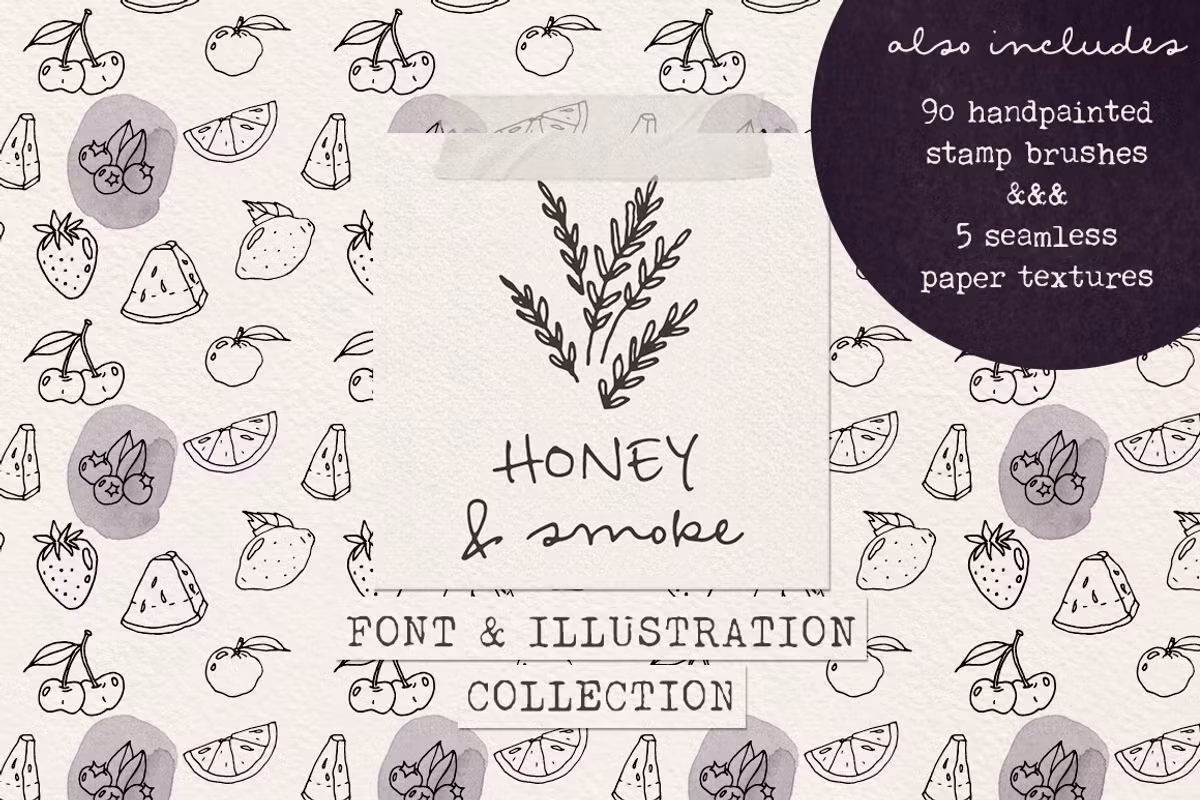
Sweet meets sultry in the Honey & Smoke Font Collection Free Download—a stylish blend of handwritten elegance and bold personality. This collection offers a versatile mix of script and display fonts, perfect for everything from branding and packaging to editorial layouts, wedding designs, and trendy social media graphics.
Each font in the set brings its own flavor, whether you're going for a soft romantic look or something with a bit more edge. The handcrafted details and artistic flair make this collection a favorite among designers looking for depth and contrast in their typography.